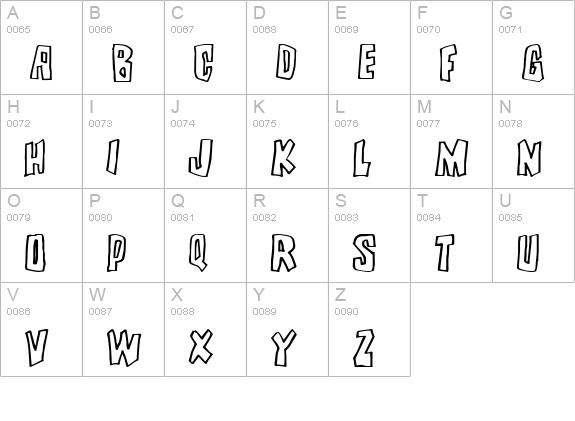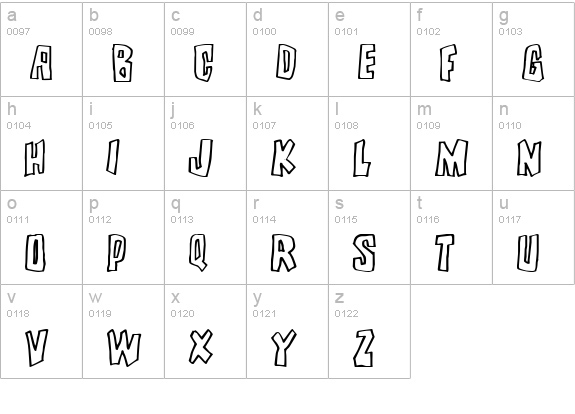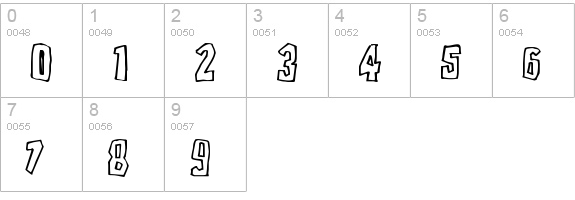
Brutality Font Details
Introducing Brutality font, a bold and powerful typeface designed to make a statement. With its sharp edges and aggressive style, Brutality is perfect for projects that require a strong and impactful look. This font exudes confidence and strength, making it ideal for headlines, posters, and branding materials. What sets Brutality font apart is not only its striking design but also its versatility. Whether you're creating a gritty urban design or a sleek modern layout, this font will suit your needs perfectly. Its unique character set includes uppercase letters, numbers, and punctuation marks, allowing you to unleash your creativity and customize your designs to perfection. The best part? Brutality font is completely free to download at FontsMarket.com. Now you can add this edgy and dynamic font to your collection without breaking the bank. Don't miss out on the opportunity to elevate your designs with Brutality font today!